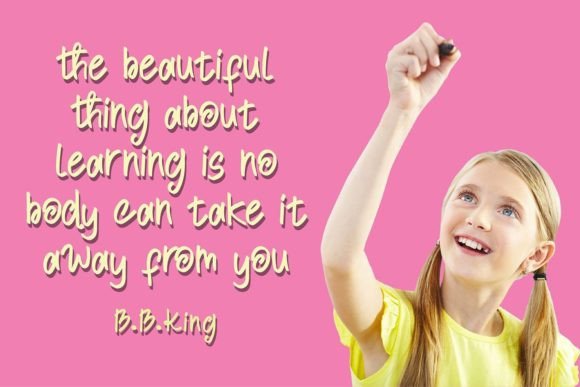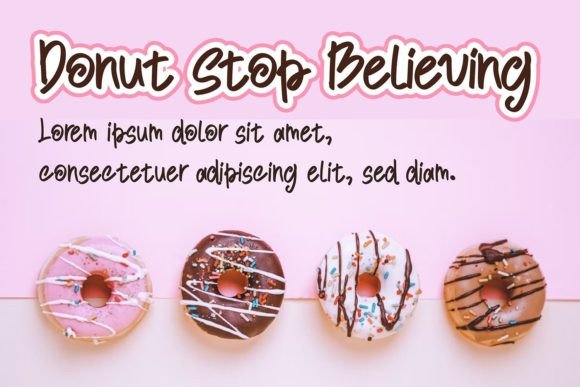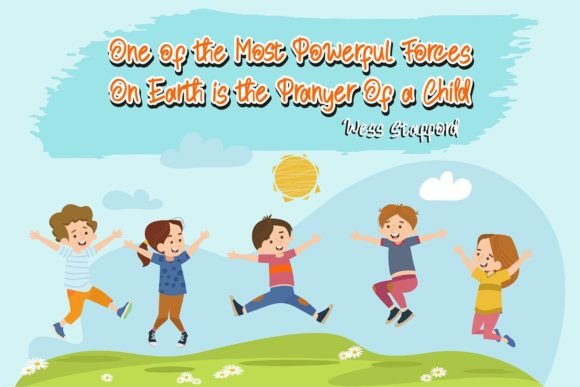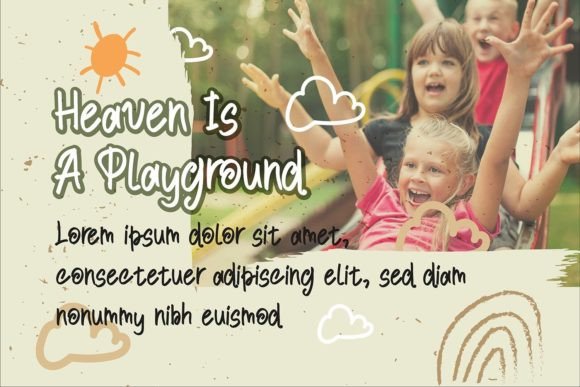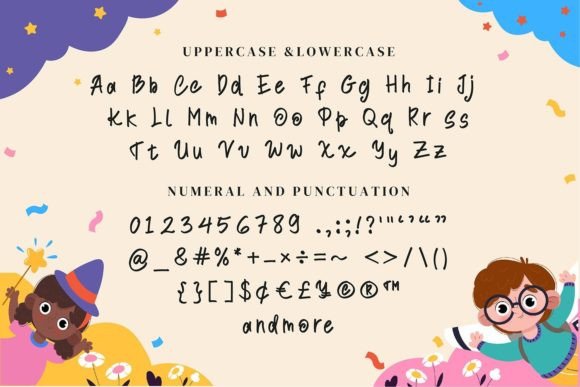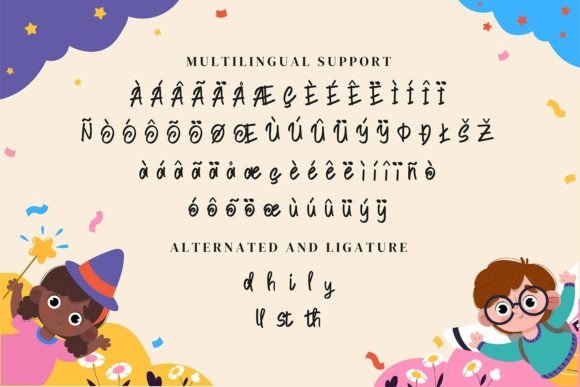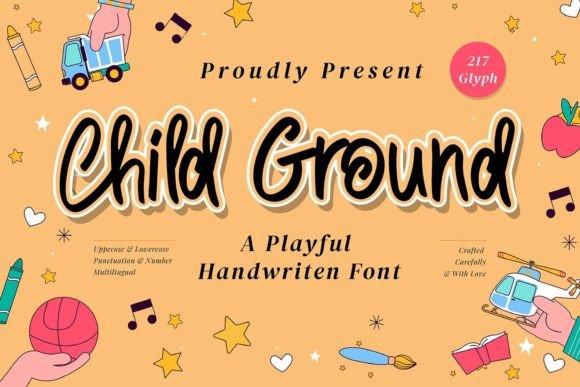
Introducing Child Ground Font: A Playful Script Font for Creative Projects
Are you a designer or crafter looking for a font that can add a touch of playfulness and elegance to your projects? Look no further than Child Ground Font, a beautiful script font that is perfect for a wide range of creative endeavors. In this article, we’ll take a closer look at Child Ground Font, its features, and how you can use it to elevate your designs.
What is Child Ground Font?
Child Ground Font is a playful script font that is designed to bring a sense of fun and sophistication to your projects. With its flowing lines and delicate curves, this font is perfect for adding a touch of elegance and whimsy to your designs. Whether you’re working on a logo, branding project, or homeware design, Child Ground Font is sure to impress.
Key Features of Child Ground Font
So, what makes Child Ground Font so special? Here are just a few of its key features:
- Playful and elegant design: Child Ground Font has a unique and eye-catching design that is both playful and elegant. Its flowing lines and delicate curves make it perfect for adding a touch of sophistication to your projects.
- Versatile: This font is incredibly versatile and can be used for a wide range of projects, from logos and branding to homeware designs and product packaging.
- Easy to read: Despite its playful design, Child Ground Font is easy to read and understand, making it perfect for use in quotes, posters, and other text-based projects.
Uses for Child Ground Font
So, what can you use Child Ground Font for? The possibilities are endless! Here are just a few ideas to get you started:
- Logos and branding projects: Child Ground Font is perfect for creating unique and eye-catching logos and branding materials.
- Homeware designs: Add a touch of elegance and sophistication to your homeware designs with Child Ground Font.
- Product packaging: Make your product packaging stand out with Child Ground Font.
- Mugs and quotes: Create beautiful and inspiring quotes and mugs with Child Ground Font.
- Posters and shopping bags: Use Child Ground Font to create eye-catching posters and shopping bags.
- T-shirts and book covers: Add a touch of playfulness and elegance to your t-shirts and book covers with Child Ground Font.
- Name cards and invitation cards: Create beautiful and elegant name cards and invitation cards with Child Ground Font.
- Greeting cards and labels: Use Child Ground Font to create beautiful and inspiring greeting cards and labels.
- Photography and watermark: Add a touch of elegance and sophistication to your photography with Child Ground Font.
- Special events: Use Child Ground Font to create beautiful and inspiring materials for special events.
Why Choose Child Ground Font?
So, why should you choose Child Ground Font for your next project? Here are just a few reasons:
- Unique and eye-catching design: Child Ground Font has a unique and eye-catching design that is sure to impress.
- High-quality: This font is of high quality and is perfect for use in professional projects.
| Font Name | Child Ground Font |
| Author | Naharstdio |
In conclusion, Child Ground Font is a beautiful and versatile script font that is perfect for a wide range of creative projects. With its playful and elegant design, this font is sure to add a touch of sophistication and whimsy to your designs. Whether you’re a designer or crafter, Child Ground Font is a great choice for your next project.